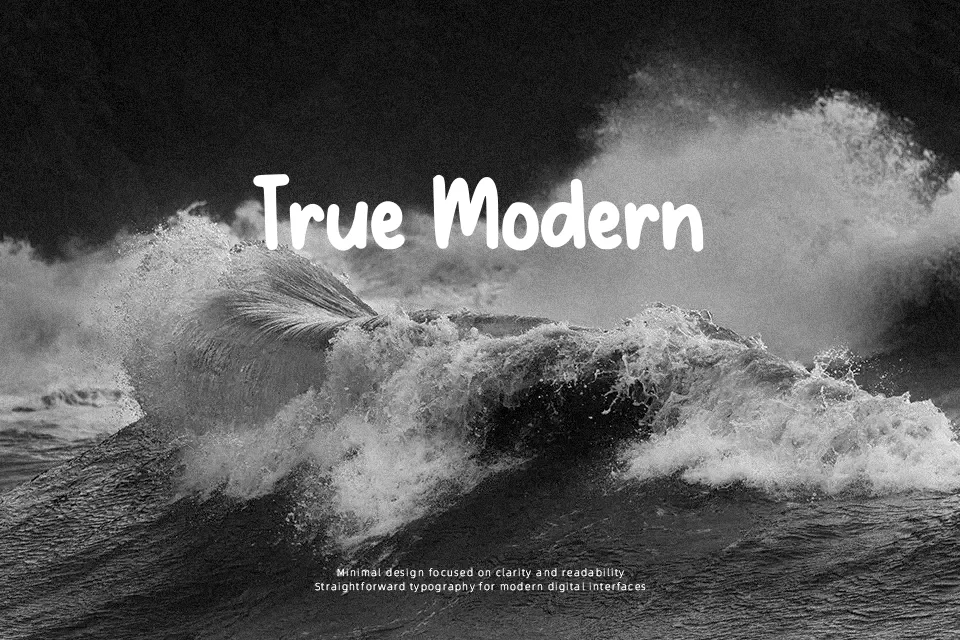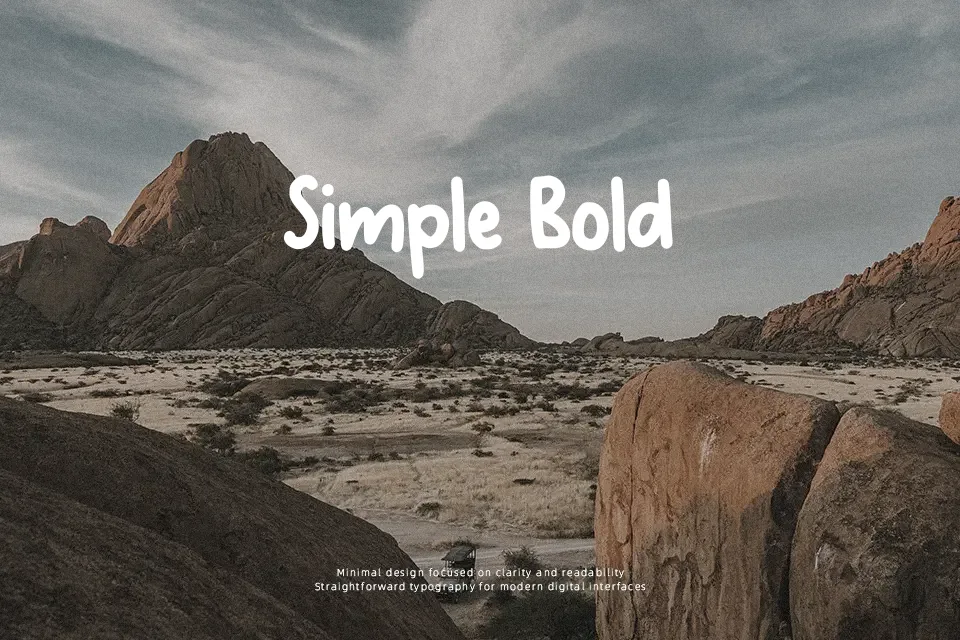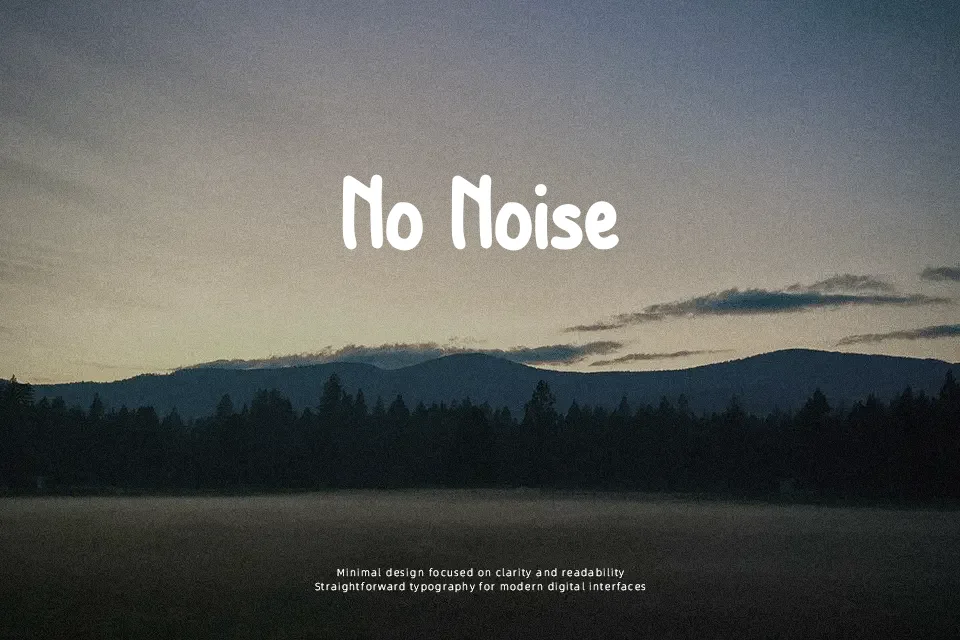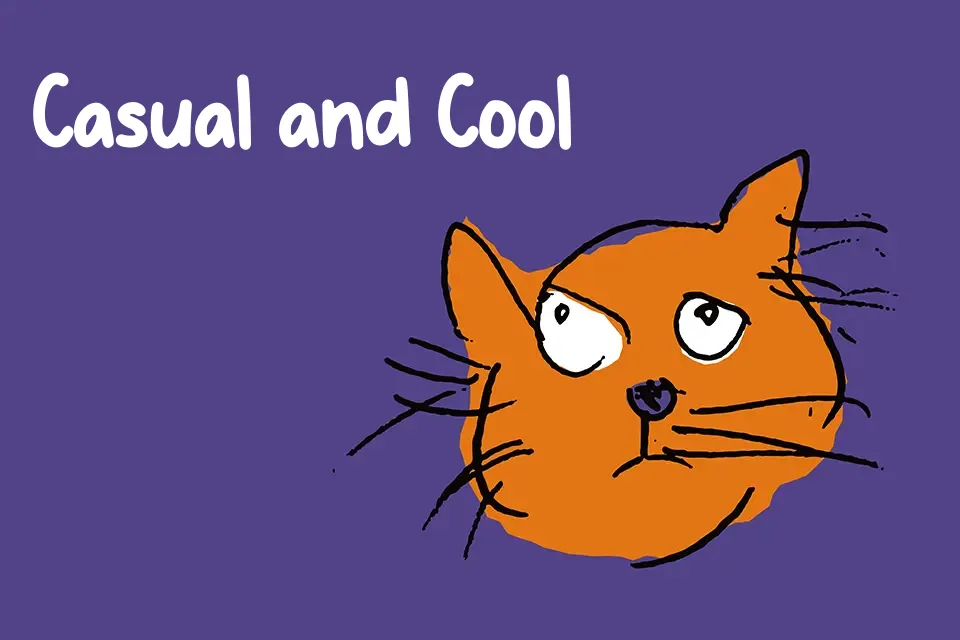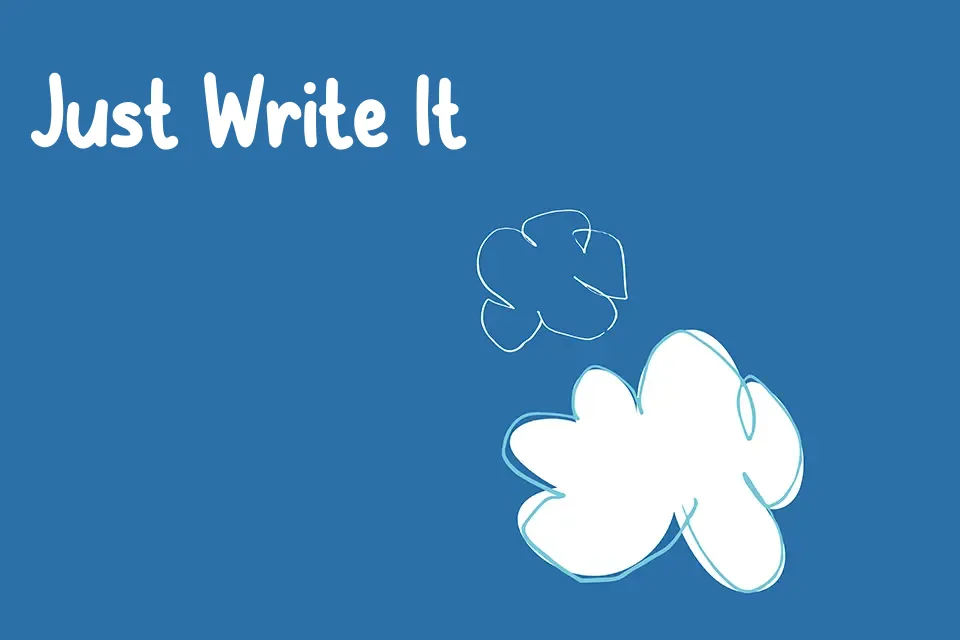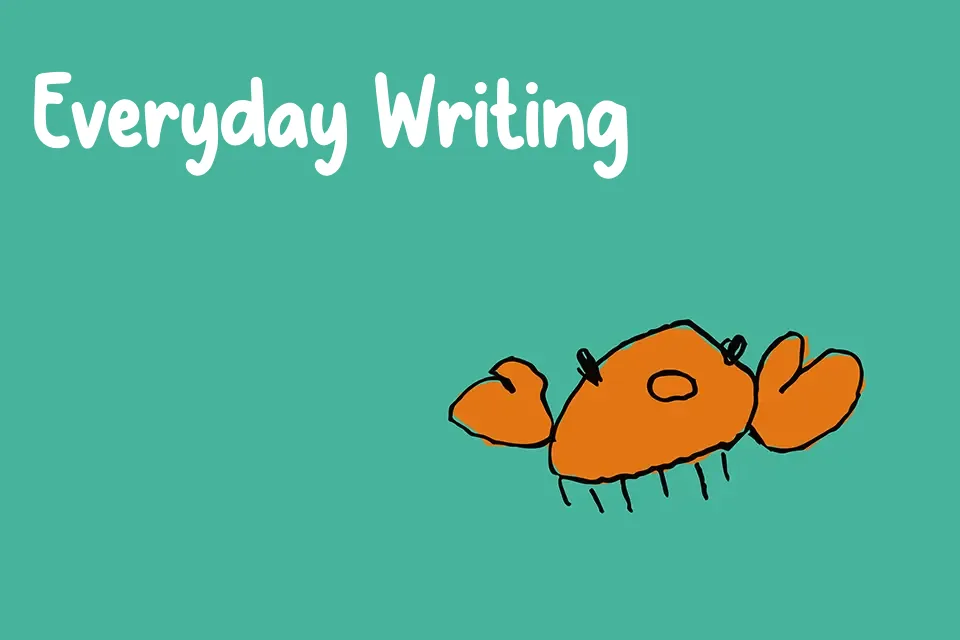
Cactuss Font
Designed by Abo Daniel Studio
Cactuss Font has a rounded handwritten look, with thick strokes, loose rhythm, and slightly irregular shapes that give it a warm, casual tone on the page. The letters lean toward a monoline feel, with low contrast and generous counters that keep short titles and branding lines easy to read, especially on posters, stickers, or social media graphics. It works well when you want a cute, approachable mood for lifestyle brands, kids’ products, or personal projects, but the informal drawing and handwritten texture make it a poor fit for serious corporate materials or dense body text. If you like relaxed script-style display fonts but prefer something chunkier and more playful than typical cursive logos, Cactuss sits comfortably in that space.
casual logo wordmarks and badges
playful poster titles and flyers
social media quotes and thumbnails
cute packaging for lifestyle or kids’ products
formal corporate branding systems
highly technical or serious editorial content
very small UI labels or dense data visuals
Perfect for kids, logo, and packaging, with a creative and decorative style.